Quick answer: Neue Helvetica 33 Thin Extended is the strongest secondary-source match on this page for the original Gossip Girl wordmark, but no first-party production credit naming an untouched retail font was found. The logo also customizes the lowercase p with a descender extending far below the other letters, so a normal Neue Helvetica setting does not reproduce the complete mark.
The identity depends on a very thin stroke, extended proportions, restrained spacing, and a clean luxury-editorial mood. NeoGram Extended provides a second visual direction when you need similar width without copying every detail of the wordmark.
Try title case and lowercase phrases in both fonts. Pay close attention to the G, R, and S shapes, then adjust tracking before adding any shadow or glow.
Helvetica Neue 33 Thin Extended
Neue Helvetica Pro 33 Extended Thin is a real Linotype style sold through MyFonts. Its extended width and thin weight closely reproduce the refined silhouette associated with the original series title.
A visual match is not the same as a production credit. Television wordmarks are frequently adjusted as artwork, and we found no first-party brand guide naming the exact typeface. The safest claim is that Neue Helvetica is the closest documented retail comparison available here.
Where the Gossip Girl font match stops
Font Meme and Creative Bloq both identify Helvetica as the underlying direction and call out the unusually long lowercase p. That descender should be treated as custom lettering added to the wordmark, not evidence of a hidden downloadable glyph or another official font style.
| Neue Helvetica 33 Thin Extended | Strongest secondary-source match | Untouched type does not produce the custom long p |
| NeoGram Extended | Commercial visual alternative | Different terminals and proportions |
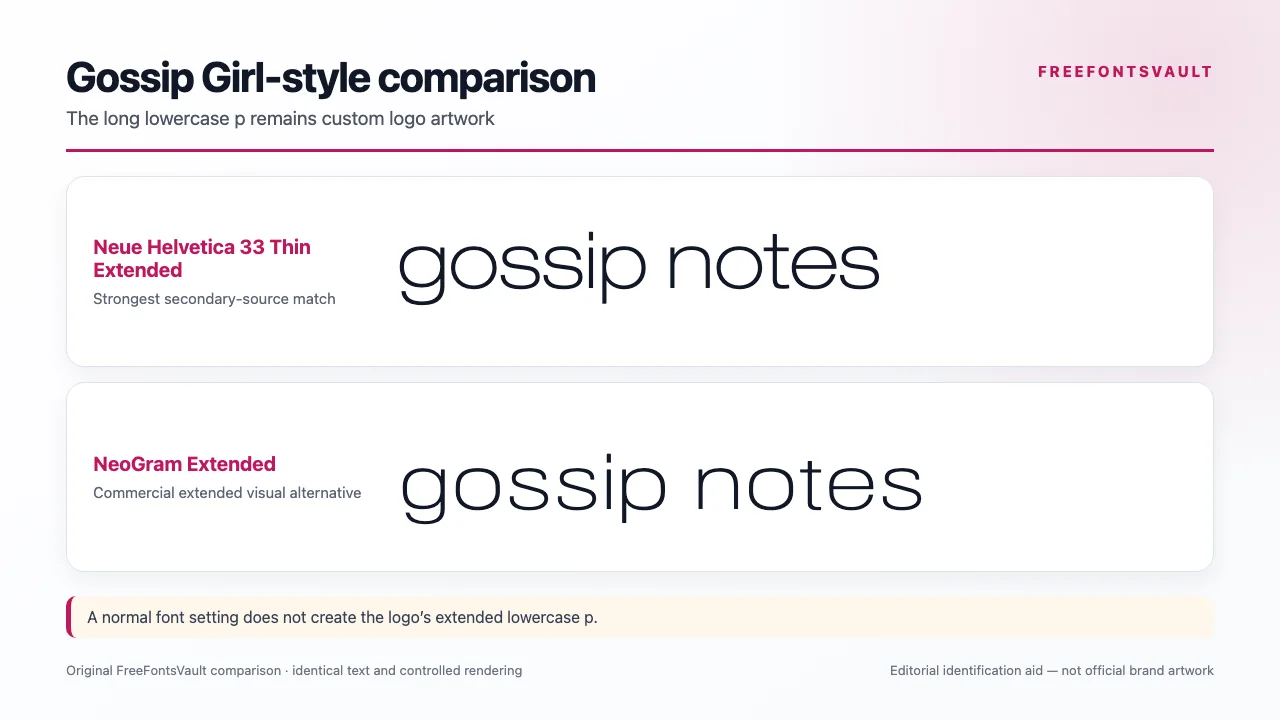
Neue Helvetica Pro 33 Extended Thin
The strongest match for the thin, wide, modern wordmark. It is a commercial Linotype design, so use the appropriate license for print, web, app, or advertising work.
NeoGram Extended
A geometric alternative with a similar extended presence. It can create a related fashion-editorial mood, but its glyph construction differs from the Gossip Girl reference.
How to recreate a Gossip Girl-style title
- Use a thin extended face and enter a short name or phrase.
- Increase tracking slightly; avoid squeezing the letters into a dense block.
- Choose black, white, pale metallic, or muted pastel colors for a refined editorial mood.
- Keep effects subtle so the thin strokes remain crisp.
- Export at a large size and check that hairlines do not disappear on mobile or in print.
For an original identity, pair the extended heading with a readable body font and develop your own spacing, color, and layout rather than copying the television lockup.
Neue Helvetica Pro 33 Extended Thin is the closest licensed retail match in this guide, but it is not publicly confirmed as an unchanged official font.
Hairline strokes need sufficient size and contrast. Export larger, avoid excessive compression, and test the result on mobile.